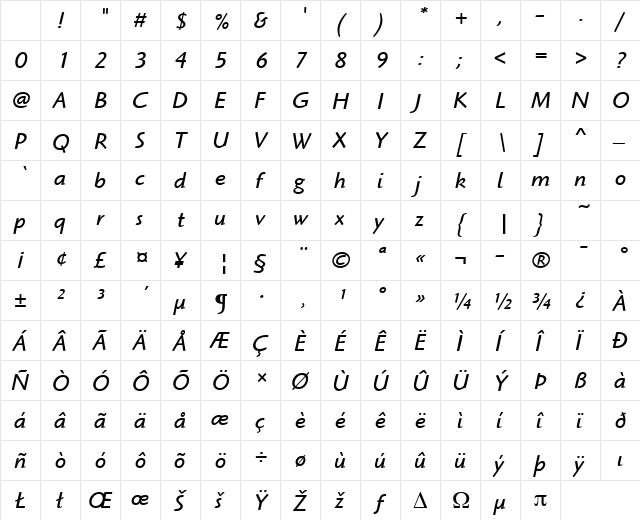
Complete Highlander ITC TT BookItalic glyph index. Displaying only characters natively supported by Highlander ITC TT BookItalic font.
Highlander ITC TT is a composed and adaptable typeface that performs quietly and consistently across a wide range of design contexts. The slanted form adds forward momentum and visual energy.